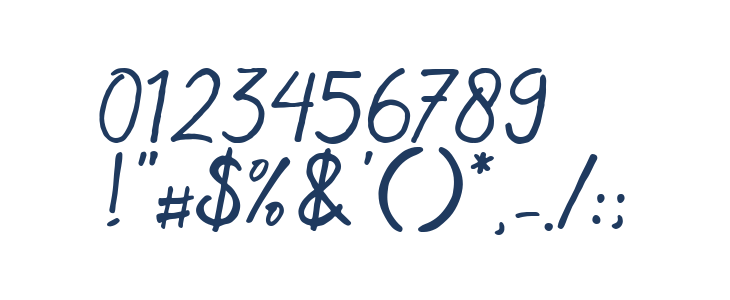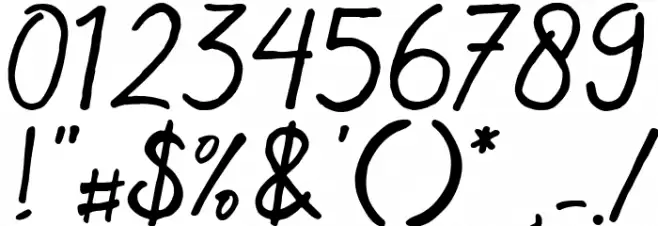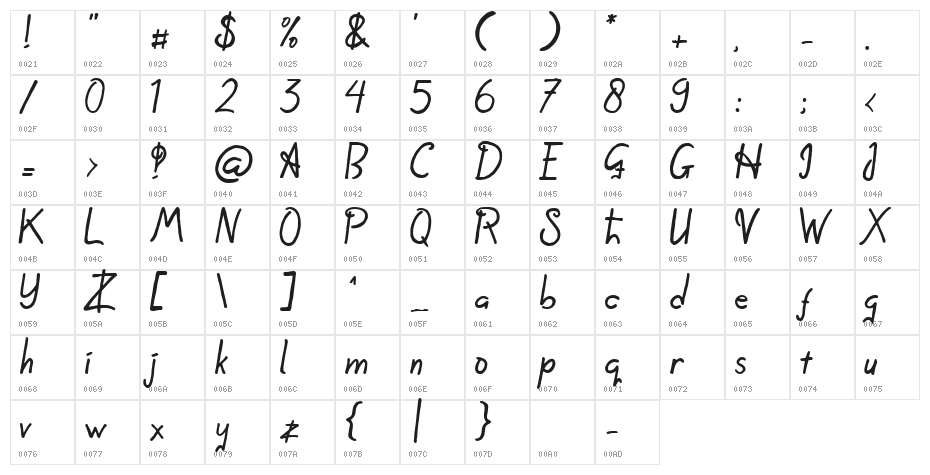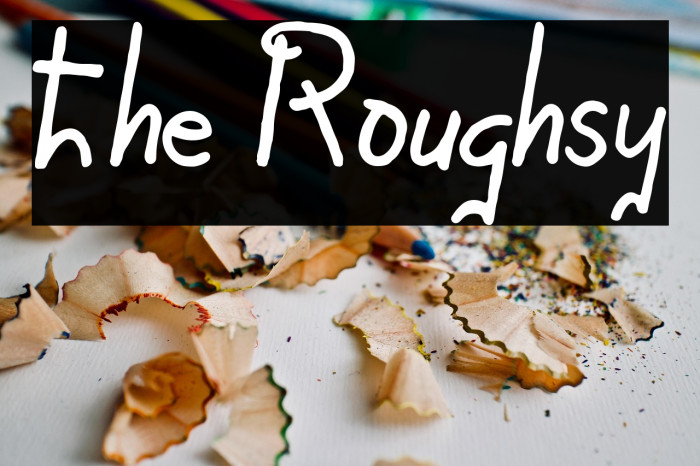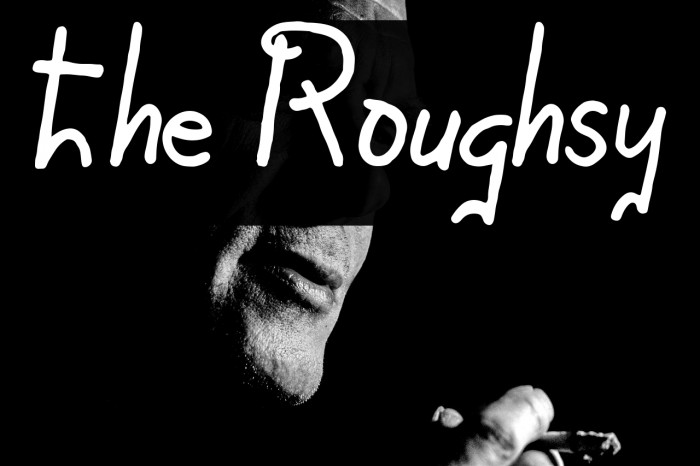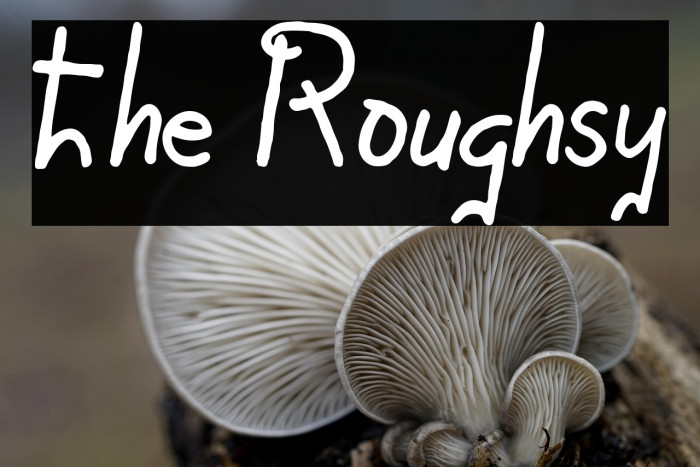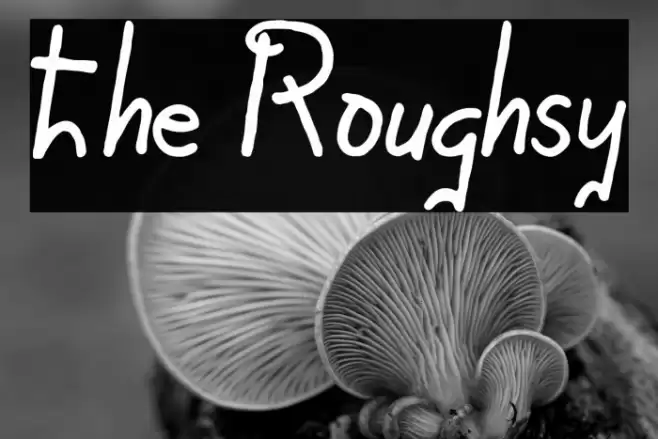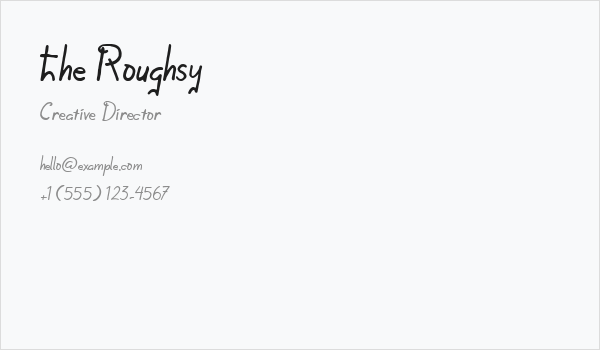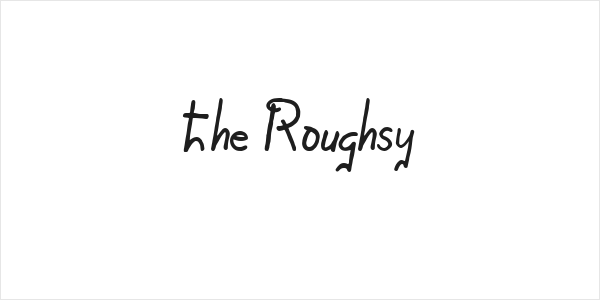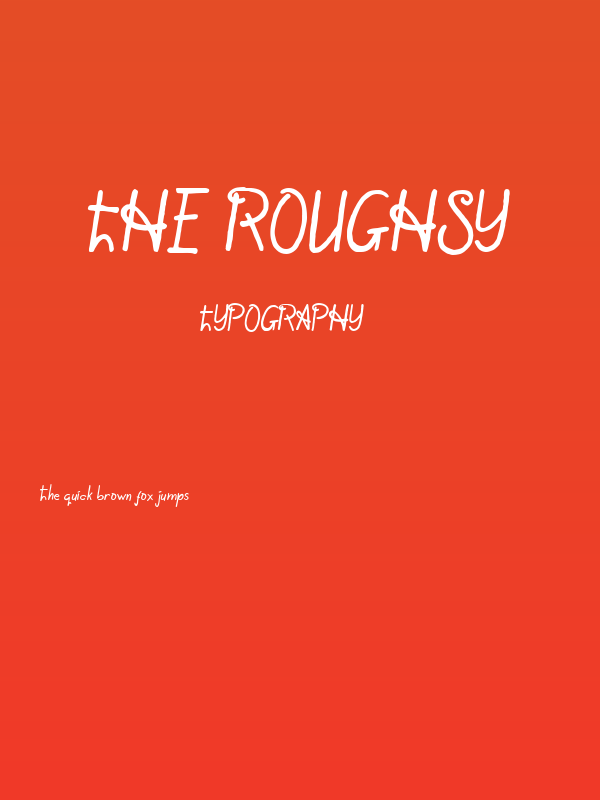
The Roughsy Font
The Roughsy Description
This font showcases a playful and energetic handwritten style, characterized by its irregular strokes and dynamic flow. The uppercase letters exhibit a unique blend of sharp angles and smooth curves, giving them a distinctive personality. The lowercase letters maintain a consistent style, with a slightly more relaxed appearance. Numbers are bold and clear, ensuring readability. Special characters are creatively designed, adding to the font's overall charm. This font's informal and lively nature makes it ideal for projects that require a personal touch.
| Proposed Projects | Ideal for greeting cards, invitations, children's books, and creative branding projects. |